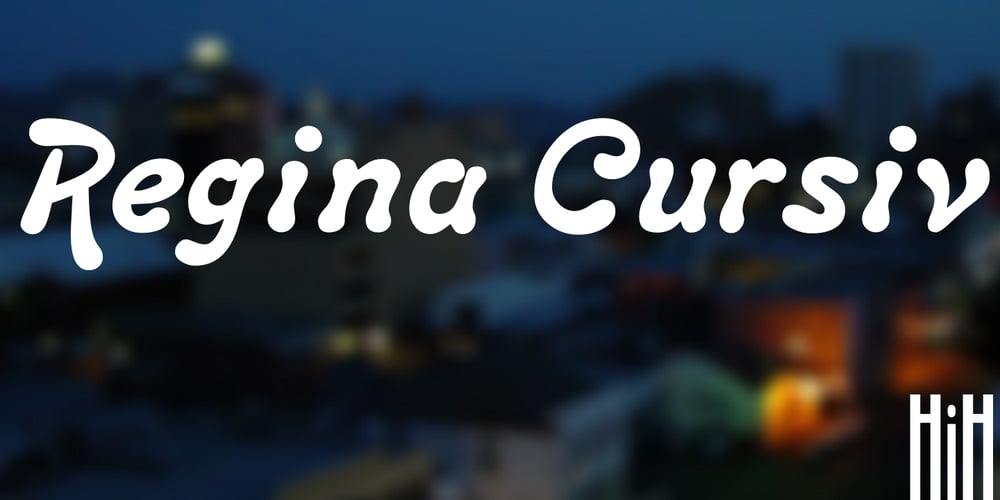
Regina Cursiv
Regina Cursiv font
Regina Cursiv Font Family was designed by published by HiH. Regina Cursiv contains 1 styles and family package options. Regina-Cursiv is a warm, bold, casual typeface. Its friendly, rounded curves remind me of the line from a gospel song by the Canton Spirituals, about “smoothin’ up the roughway.” Jointly released by the Bauer and Berthold foundries of Germany during the fin-de-siecle period, this typeface has some cultural flexibility. There are alternate versions of the uppercase ‘H’ and ‘I’ that can be chosen to reflect a humanist or blackletter tradition, whichever you prefer. Other alternates offer various stylistic choices. Regina Cursiv is a friendly, comfortable font. You will enjoy using it. Alternative letters: D, E, G, I, K, S, T, d, h, k, m, n and z. The numerals are old-style figures.